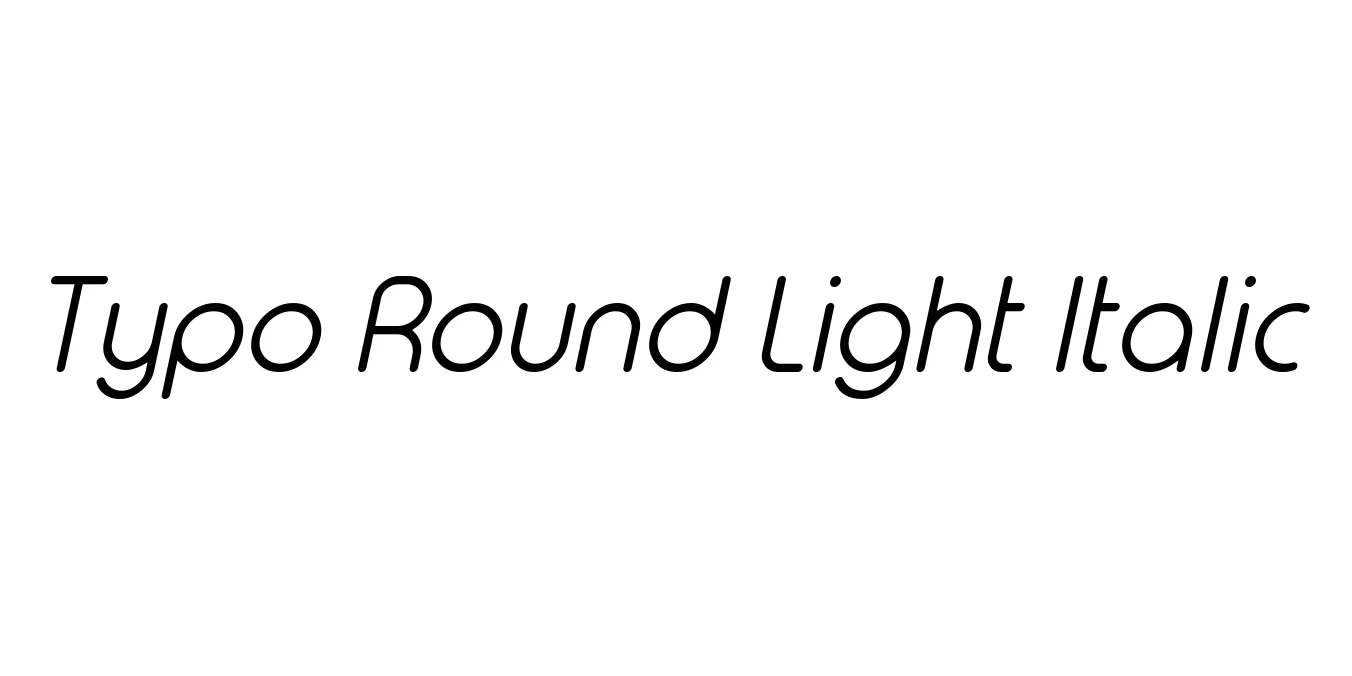
Typo Round Light Italic
Designed by Studio Typo
| Similar Fonts | Varela Round, Comfortaa, Arial Rounded MT, Quicksand |
Typo Round Light Italic is a refined member of the Typo Round superfamily, known for its harmonious blend of geometric precision and soft, friendly terminals. This specific weight provides a delicate and airy feel, while the italicized posture introduces a sense of motion and modern elegance to the typeface's overall structure.
Developed by Studio Typo, the font focuses on high legibility and a clean aesthetic that works exceptionally well in minimalist designs. The rounded corners reduce the harshness often found in geometric sans-serifs, making it a preferred choice for brands that want to appear approachable, professional, and contemporary across both digital and print media.
Typo Round Light Italic Best Uses
Perfect for modern, friendly brand identities and organic logo designs.
Highly effective for clean headers and readable body text in minimalist layouts.
Ideal for user interface elements that require a soft and welcoming aesthetic.
Excellent for pull quotes and stylish subheadings in lifestyle magazines.